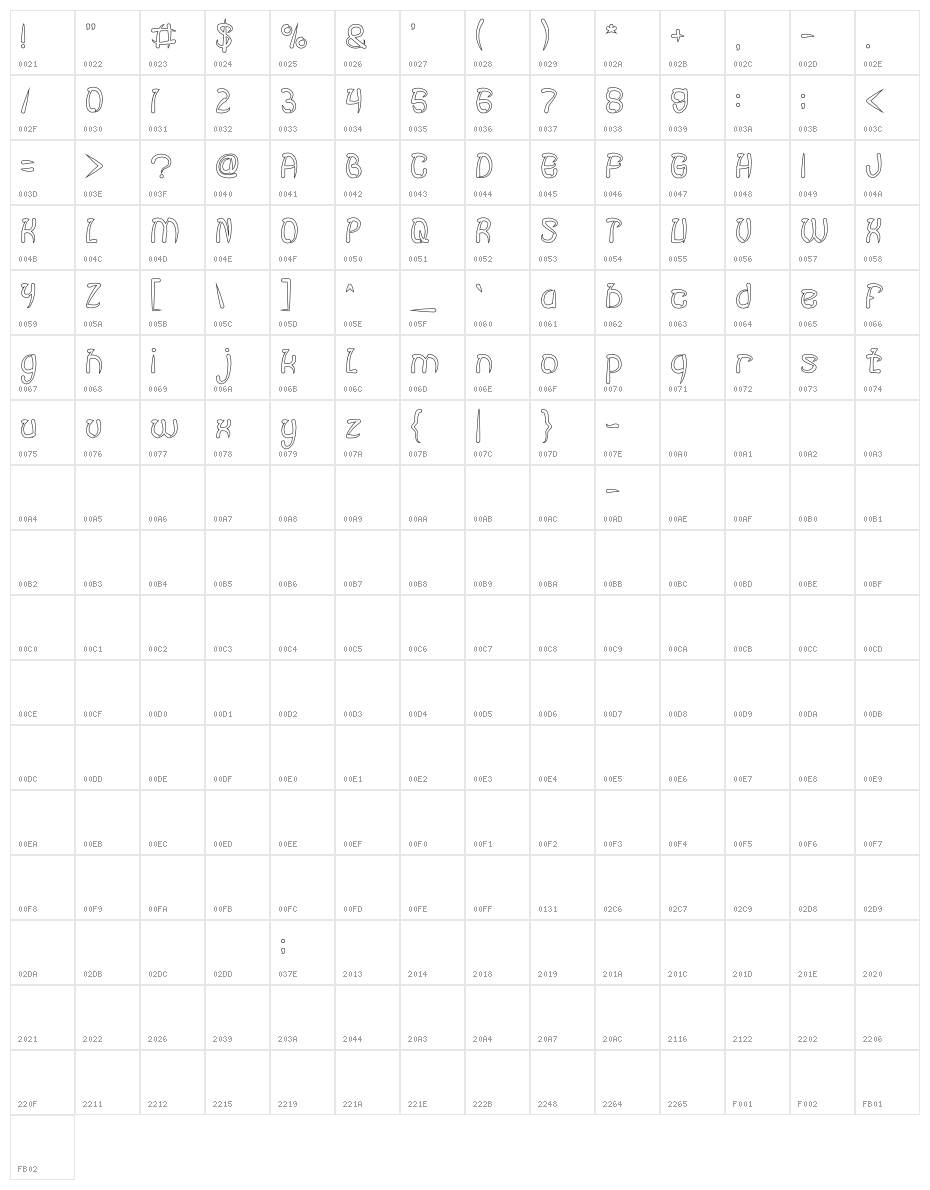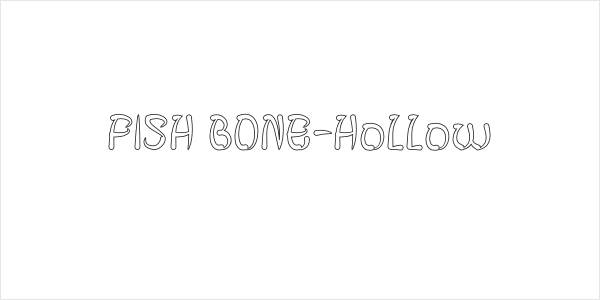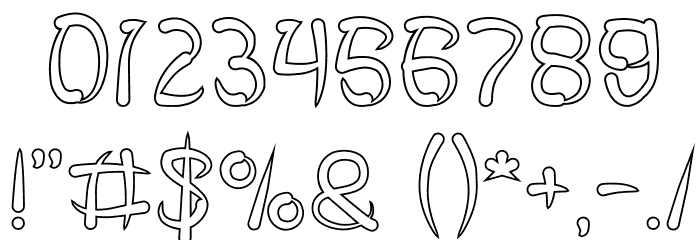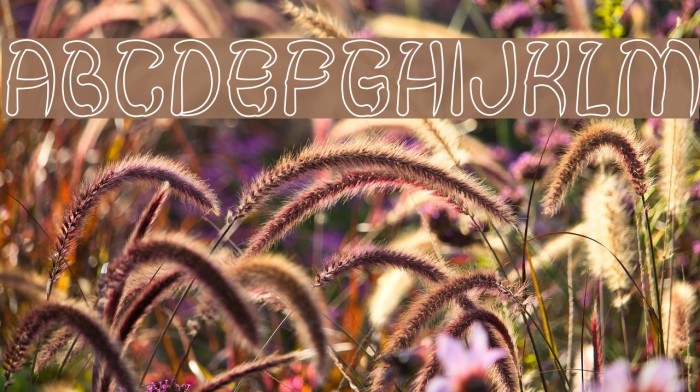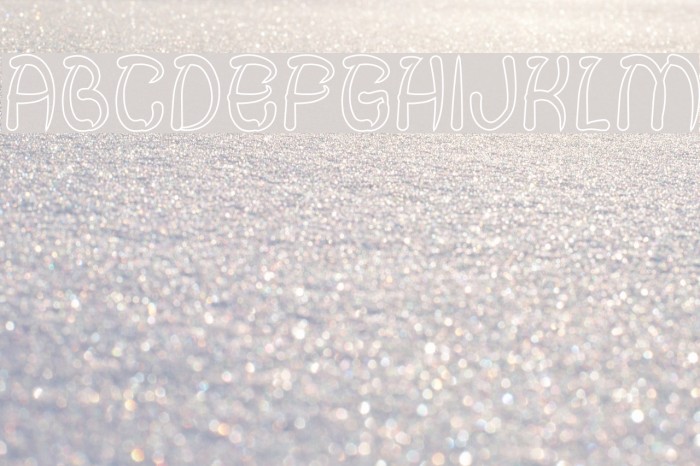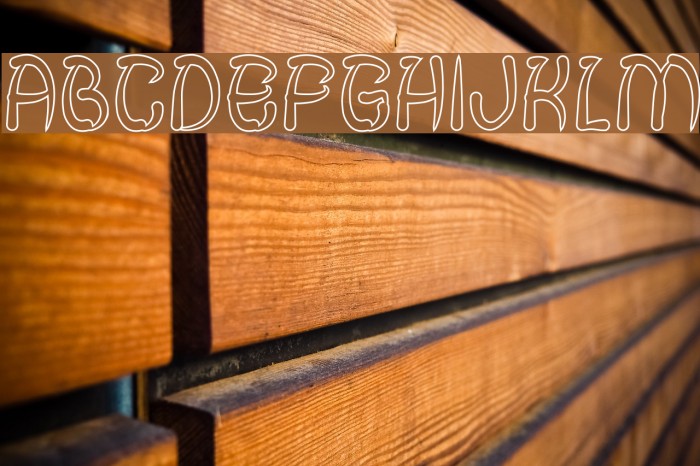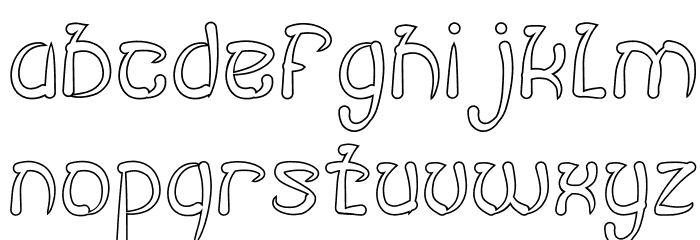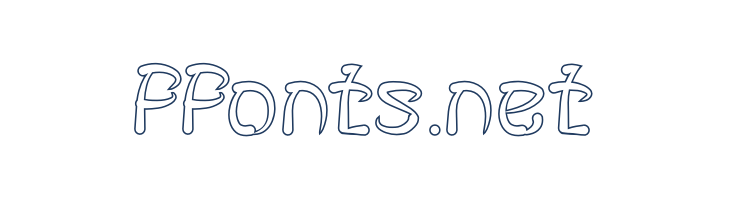
FISH BONE-Hollow Font
FISH BONE-Hollow Description
This font features a unique, hollow design that gives each character a skeletal, outlined appearance. The letters are crafted with a playful, whimsical style, reminiscent of hand-drawn illustrations. The uppercase and lowercase letters maintain a consistent, rounded form, while the numbers and special characters follow the same aesthetic, ensuring a cohesive look. The font's distinct hollow effect adds a sense of lightness and creativity, making it stand out in any design. Its playful nature makes it suitable for projects that require a touch of fun and originality.